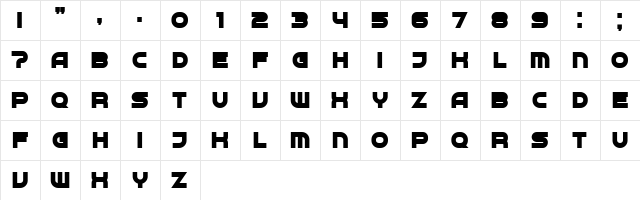
Neighbor Bold
Design Context for Neighbor Typeface
Neighbor takes a measured approach to typography — its balanced proportions and neutral character make it a reliable workhorse for both digital and print work. Its bold stroke weight gives it real presence on the page.